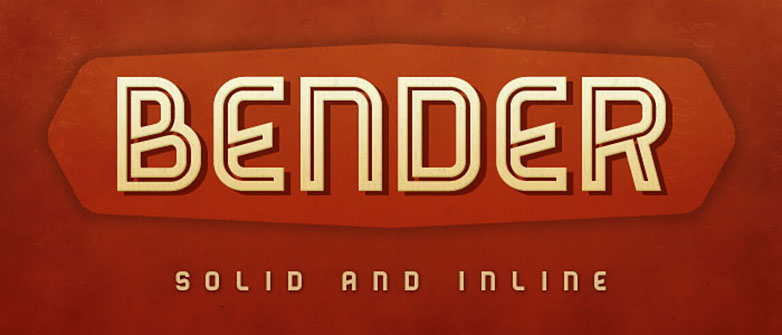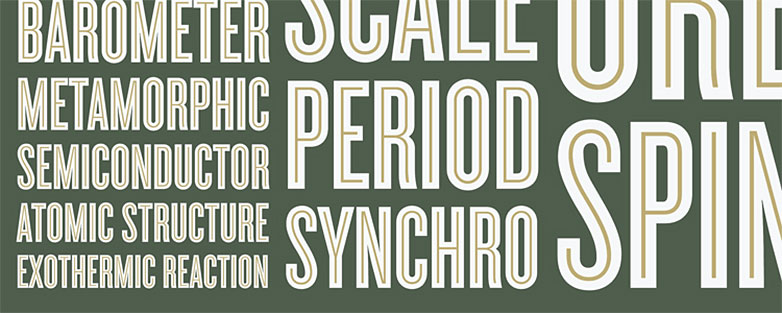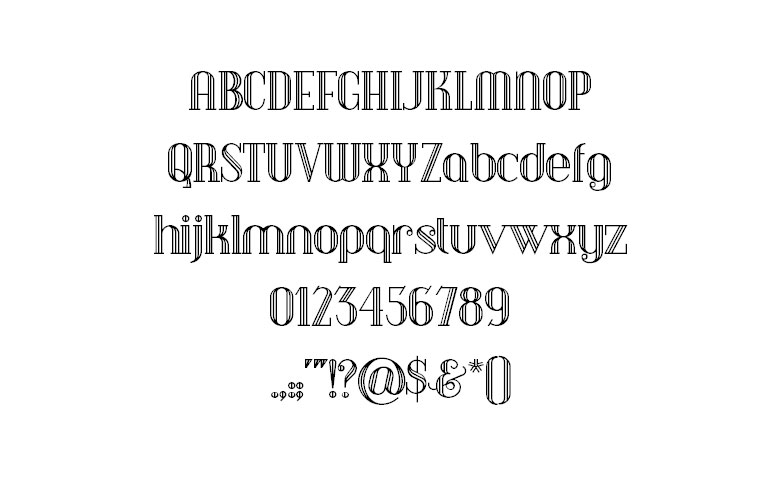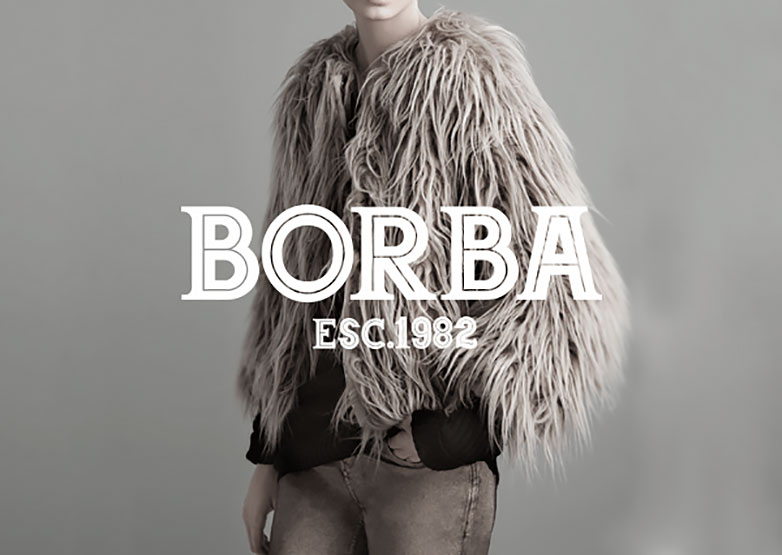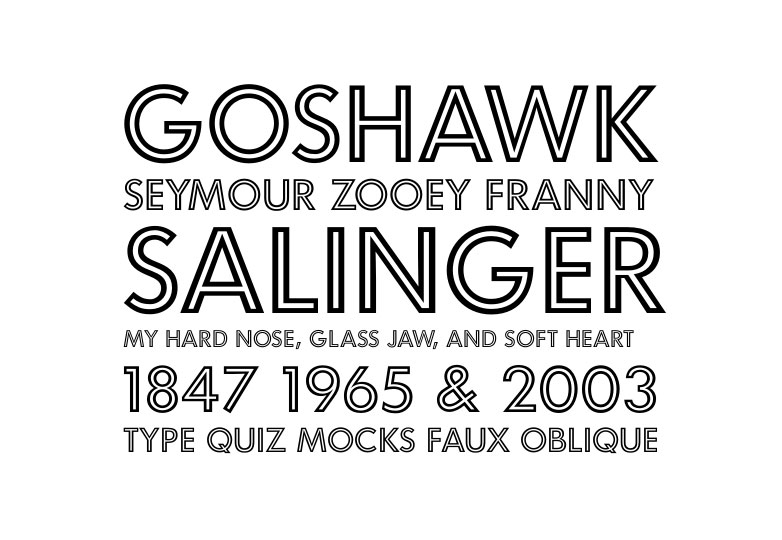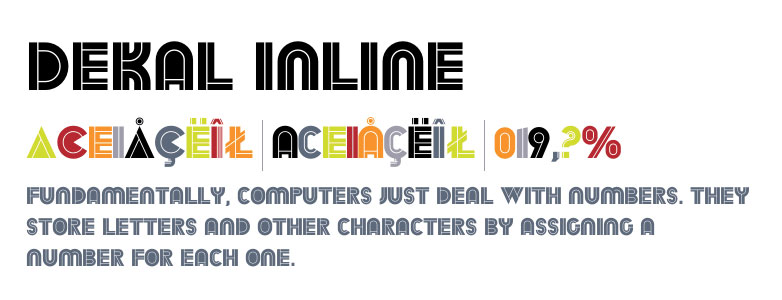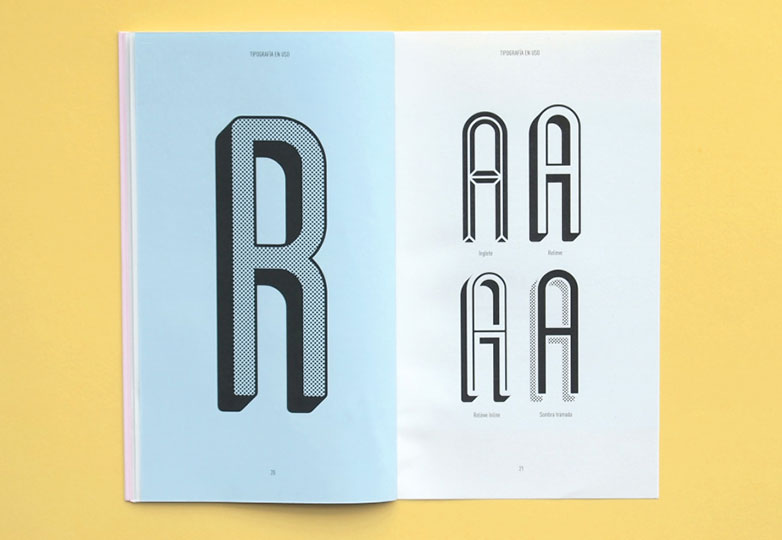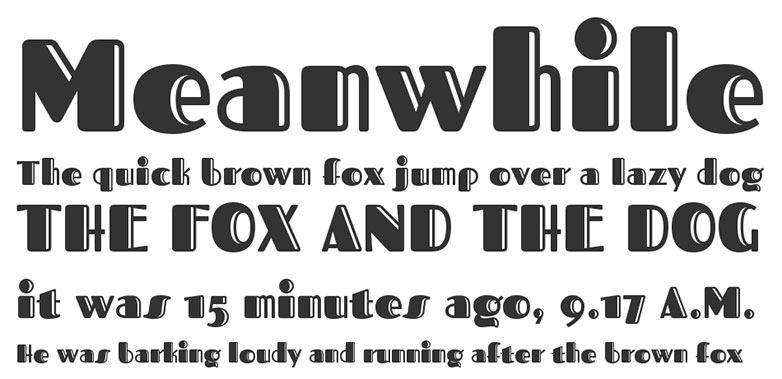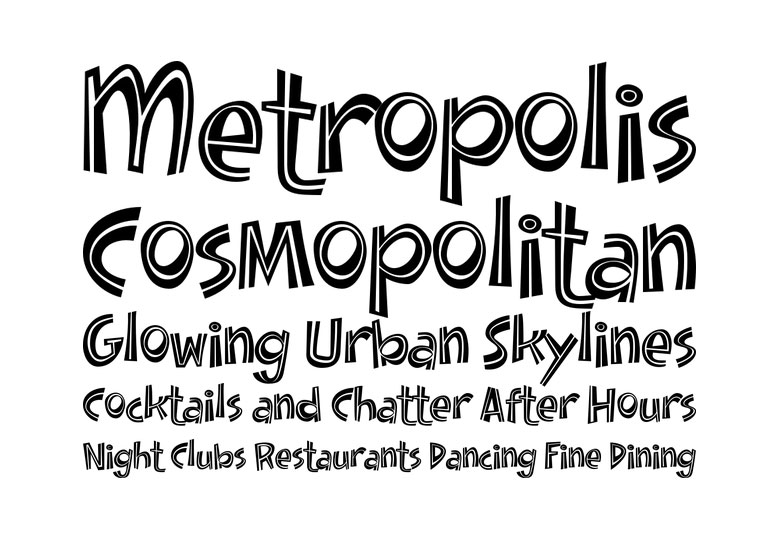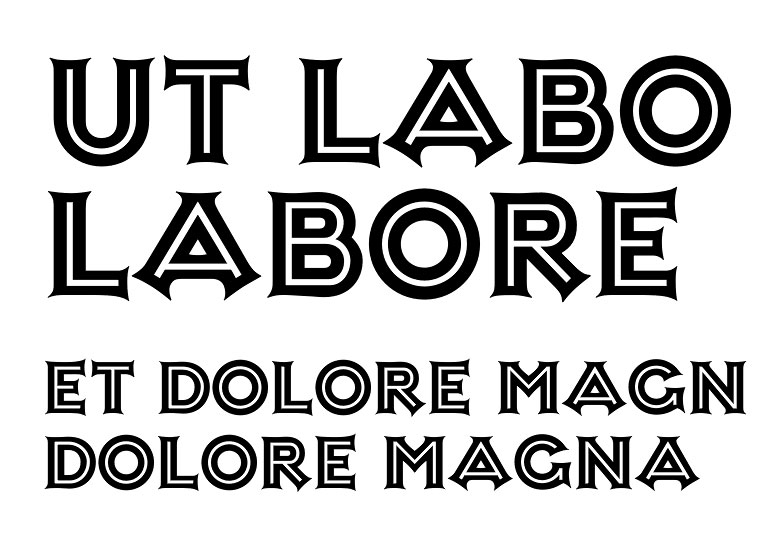
It’s looking to be the hottest trend to hit web design since large text: inline typefaces are the perfect marriage of character and clarity.
Perfect for flat design, inline typefaces create texture without using bevels or drop shadows. Typically they have hairline strokes inside the thicker bold strokes; this gives them a bold, chunky legibility, coupled with a delicate touch.
Display type needs to stand out from body type, especially when set over large images, and inline typefaces provide that texture in a clean way. They’ve been around for centuries, but it’s only recently that their potential for websites has begun to be picked up.
This is one bandwagon you will want to jump on, so put down Proxima Nova for a minute, and take a look at some of the best inline fonts available:
Conqueror Inline (free)
Intro Inline (free)
Bender Inline (free)
Newton Inline ($39 approx.)
Felina Serif Inline ($40 approx.)
Cyclone (subscription)
Skunkling ($19)
Ostrich Sans Inline (free)
Debonair Inline (free)
Goudy Handtooled ($29)
Borba ($14 approx.)
Carisma Inline ($49 approx.)
Neutra No.2 Display Inline ($150)
Rex Inline (free)
Sans Serif Inline ($35)
Landmark Inline (subscription)
Dekal Inline ($30 approx.)
Smaragd Regular ($39 approx.)
Naive Inline ($28)
Gist ($17.15)
Blanch Inline (free)
Ribbon (free)
Metropolis (free)
Homestead (free)
Matrix II Inline ($80)
Phosphate ($74 approx.)
Sphinx Inline ($54 approx.)
Lagniappe Inline (free)
Fascinate Inline (free)
Posterizer KG Inline ($20)
Doinky Inline ($29.95)
Ashley Crawford AT Inline ($29)
Marketing Script Inline (free)
FFD Neuland Inline ($39 approx.)
Rainforest Inline ($30)
Memoriam Pro Inline ($49.94)